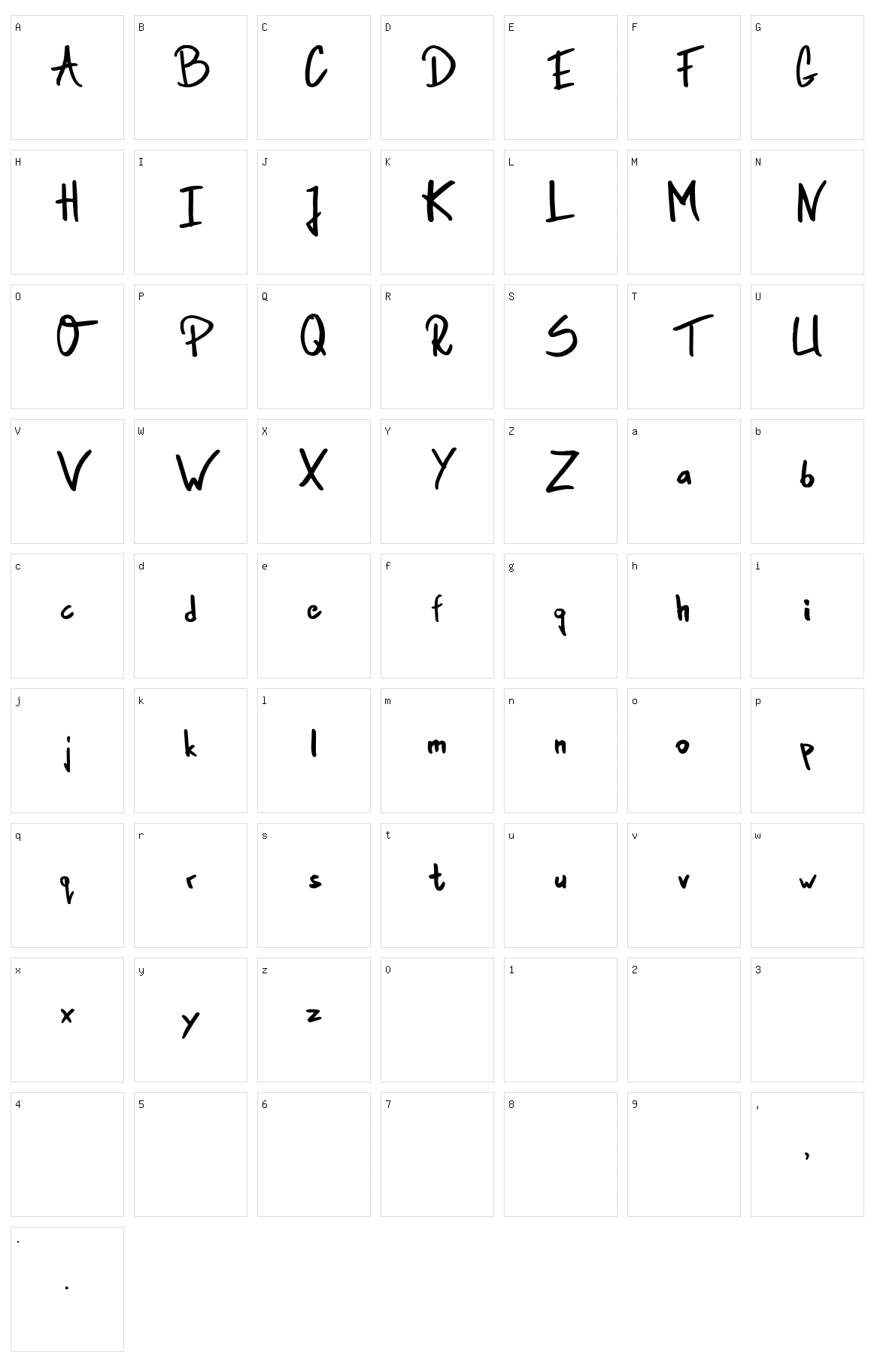
The free font Gambler in Town is carefully designed by edvardaso, showcasing a thoughtful balance of creativity and usability and falls under the Script font style. When you download the ZIP file, it contains only 17.91 KB of font files, making it lightweight and quick to download. Please review the license details below to understand permitted usage and distribution rights. If license information is not available, we recommend using this font for personal projects only or contacting the author directly for commercial usage permissions.